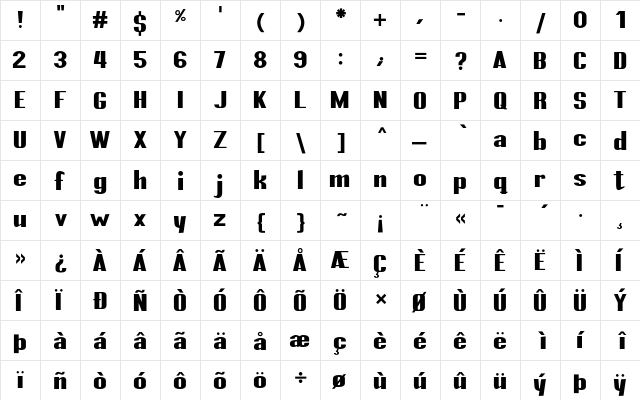
prazo Regular
| Designer | marco antonio ramirez |
Design Context for prazo Typeface
prazo takes a measured approach to typography — its balanced proportions and neutral character make it a reliable workhorse for both digital and print work.